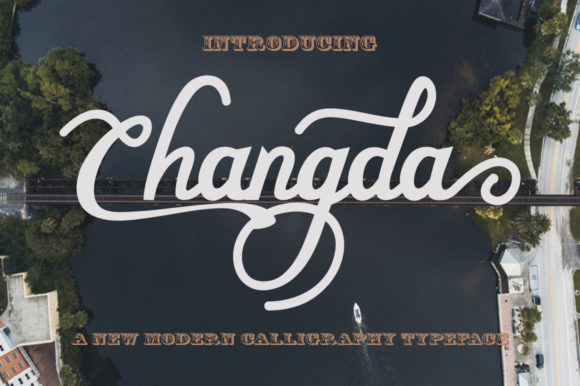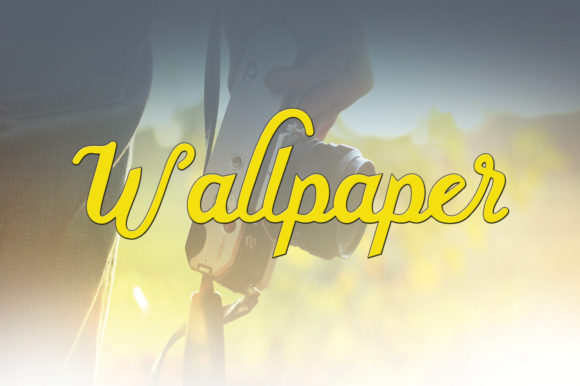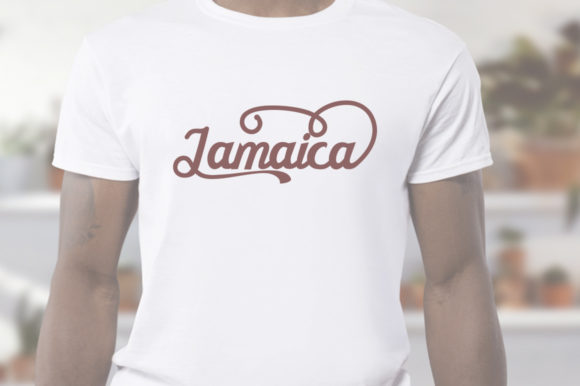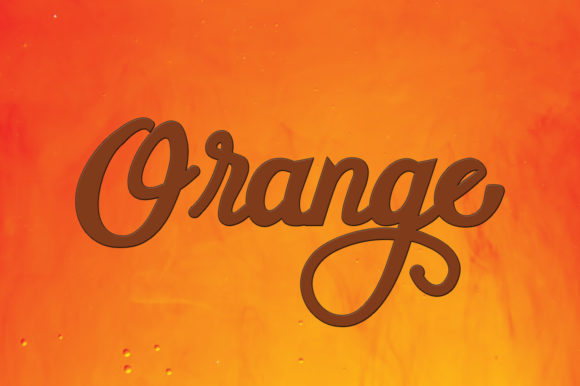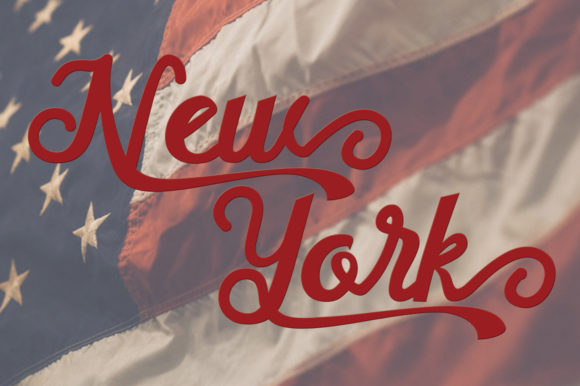
Changda Font
About Changda Font
Changda is an authentic and playful handwritten font with a unique feel. It will turn any design project into an eye catcher!